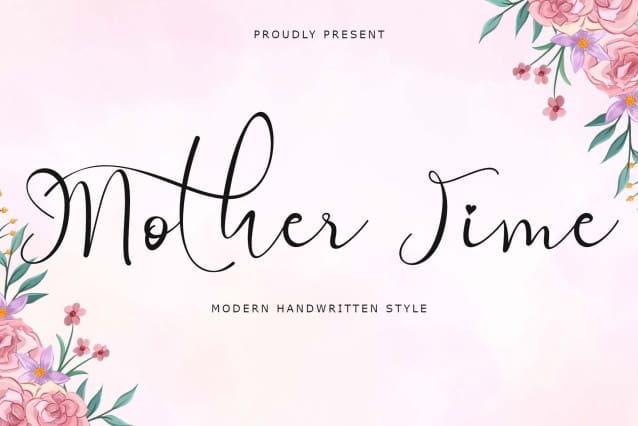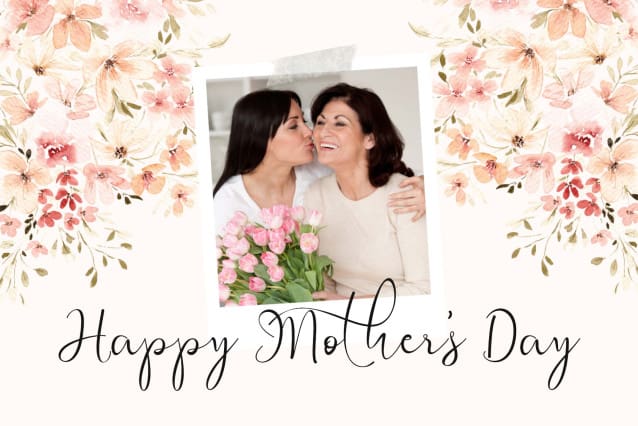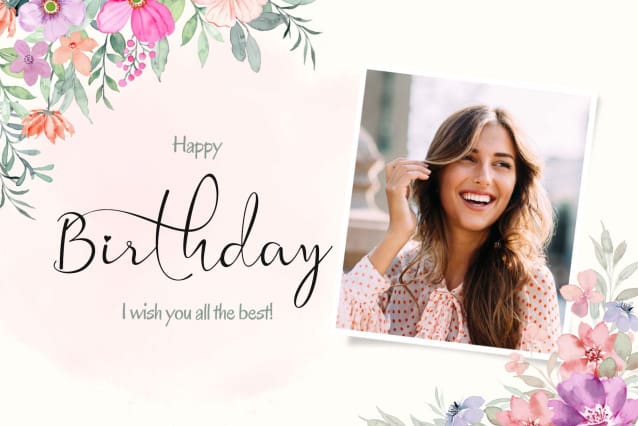
Mother Time Font
Mother Time Font is a beautiful handwritten font. This font is equipped with uppercase, lowercase, ligatures, numerals, punctuations and multilingual support. Very suitable for spring, summer, wedding, party, banners, branding, stickers, logos and others.